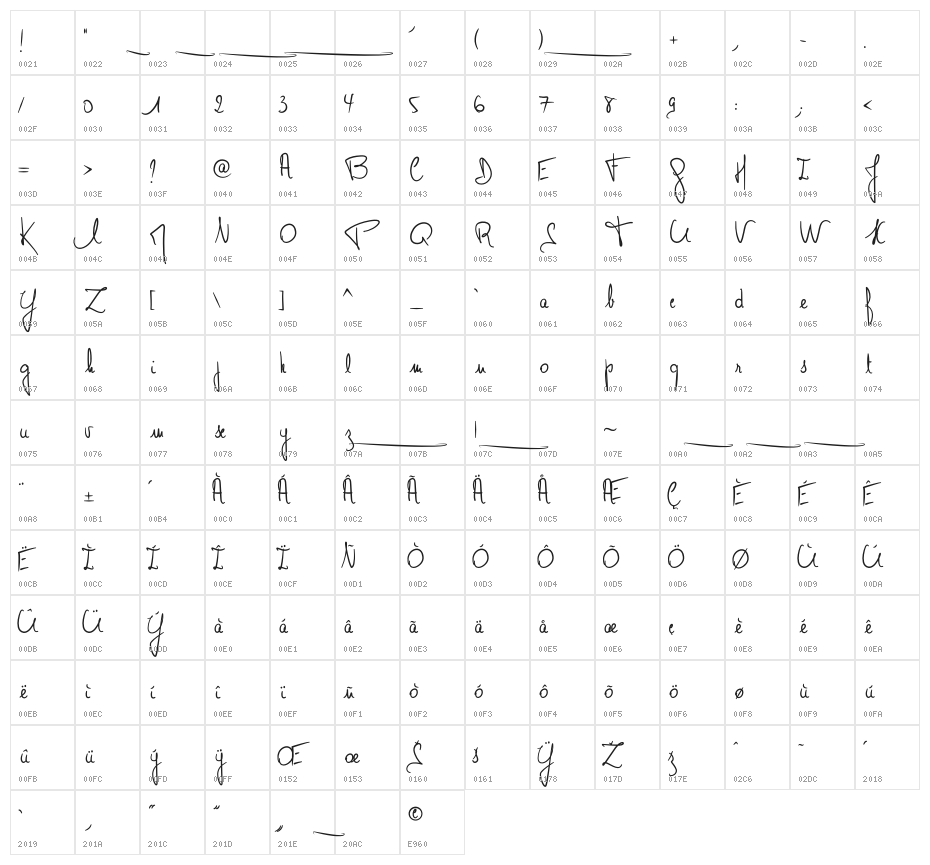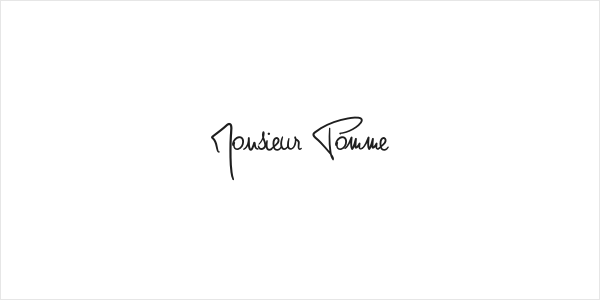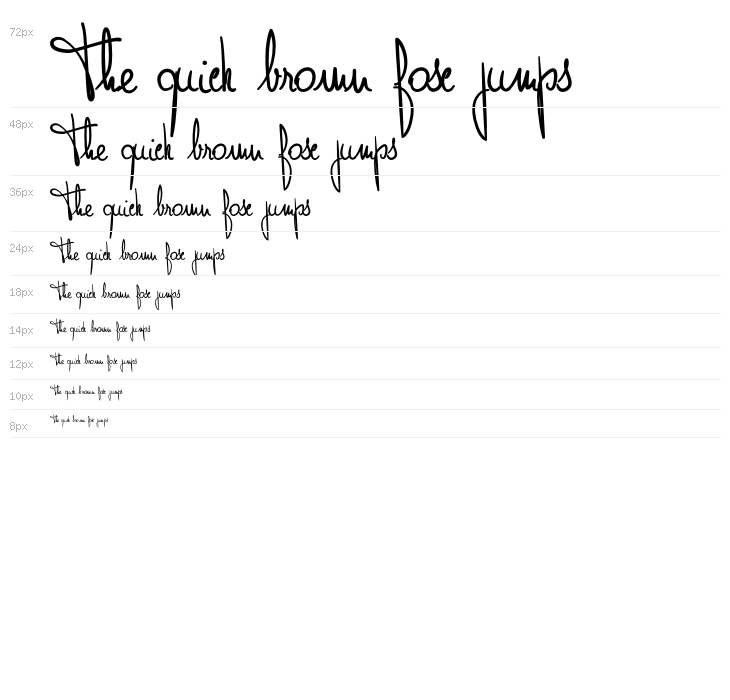
Monsieur Pomme Font
Monsieur Pomme Description
This font exhibits a unique and artistic handwritten style, characterized by its fluid and dynamic strokes. The letters are interconnected with a playful and whimsical flair, giving it a lively and expressive appearance. The uppercase letters are bold and prominent, while the lowercase letters maintain a consistent flow, adding to the overall charm. The numbers and special characters follow the same artistic theme, ensuring a cohesive look across all elements. This font's distinctive style makes it suitable for creative projects that require a personal and informal touch.